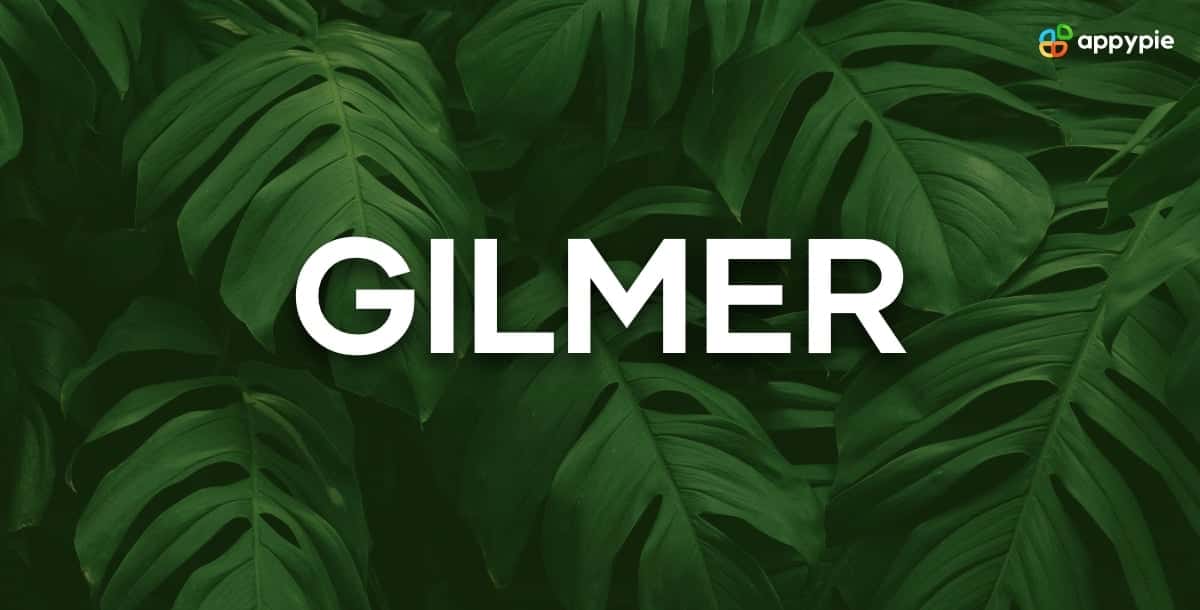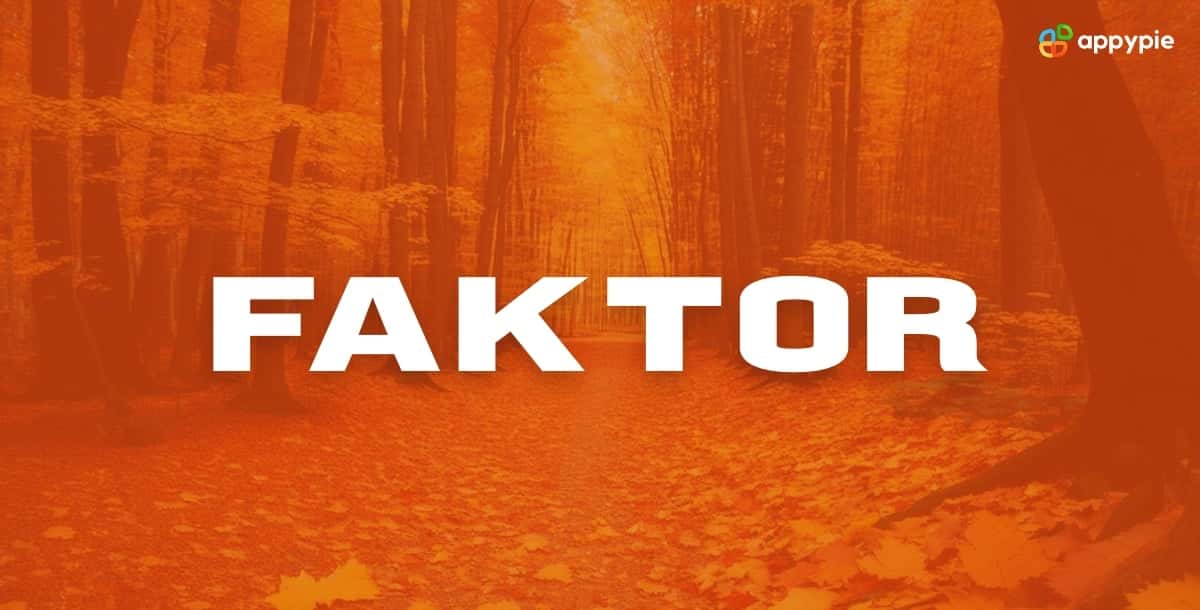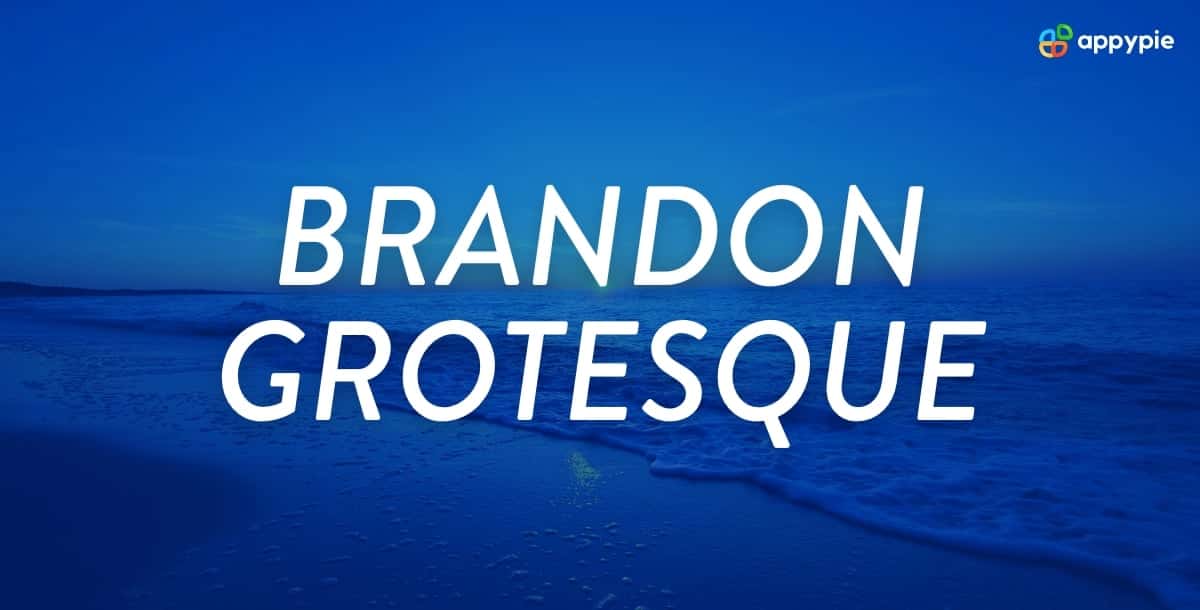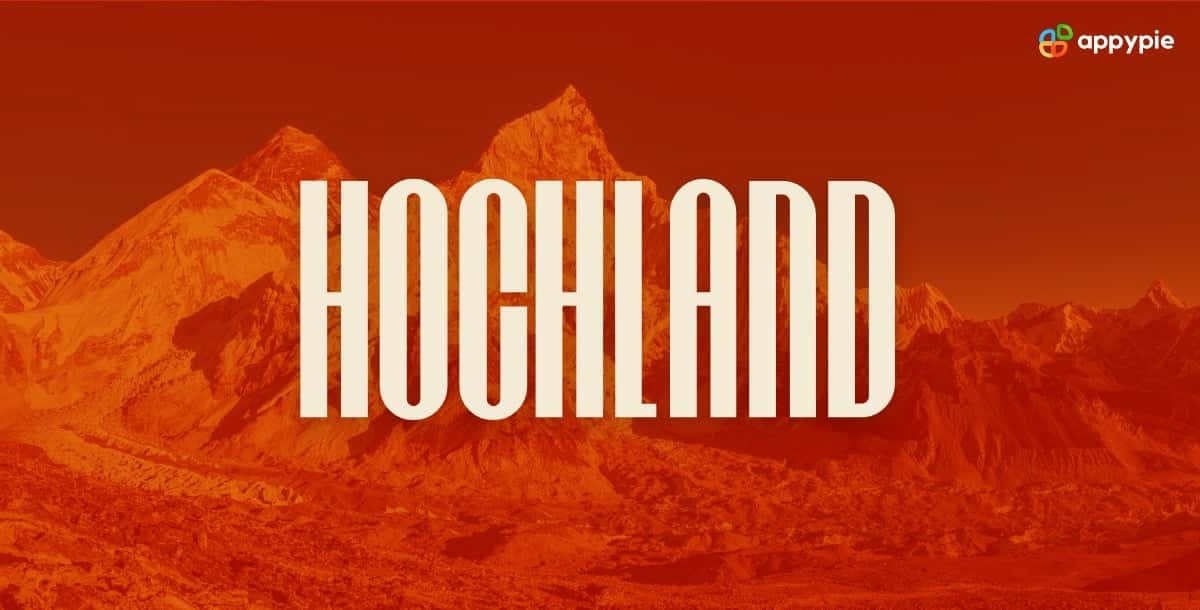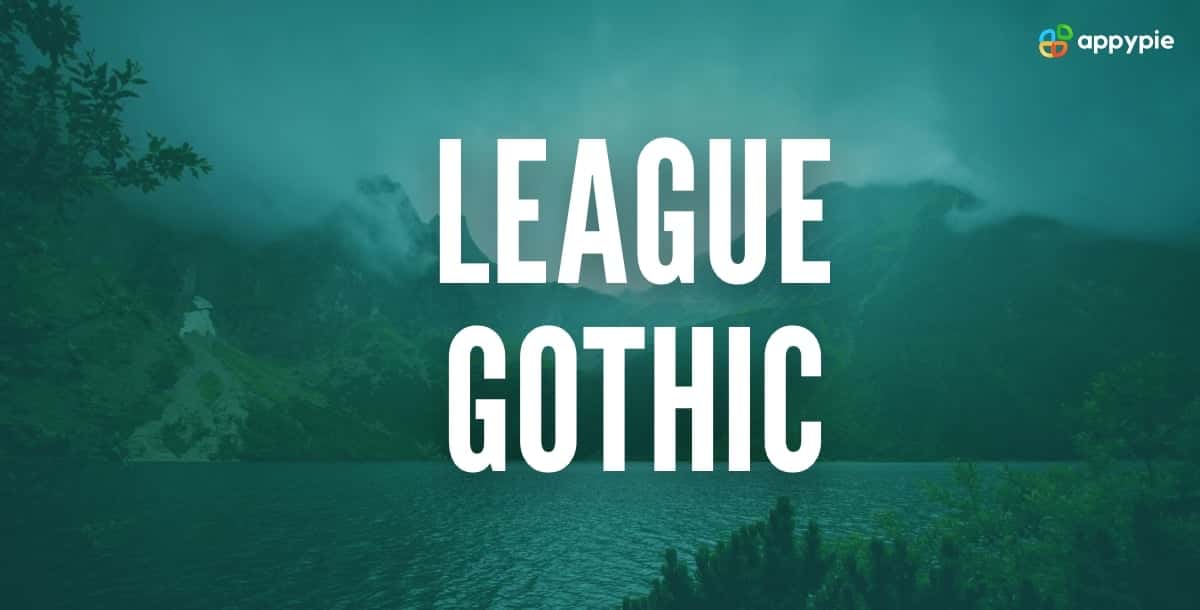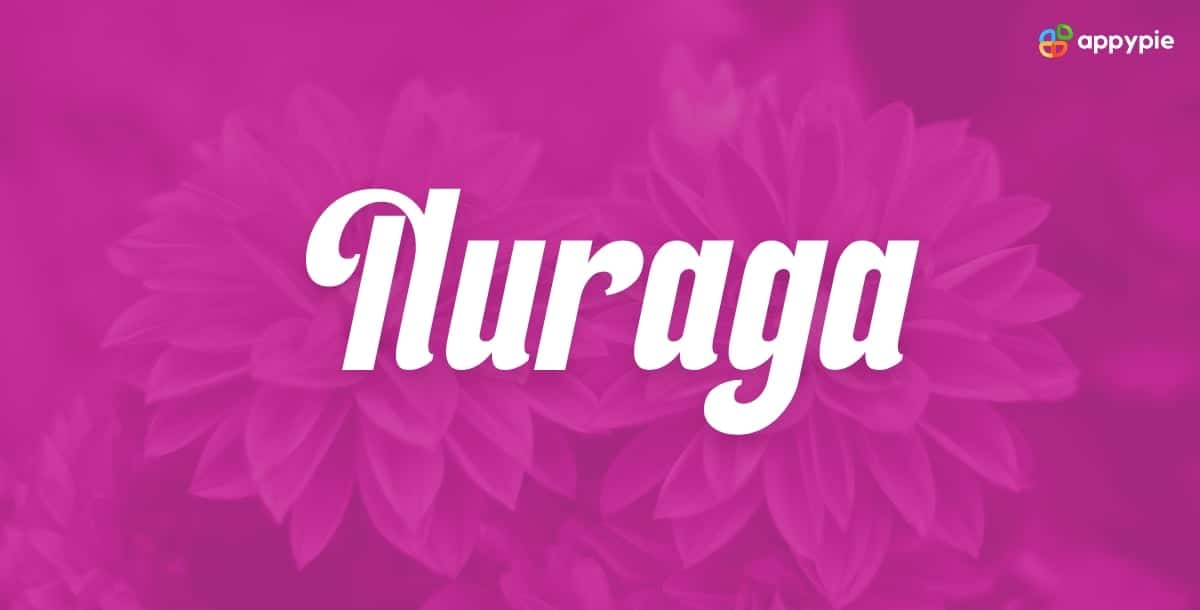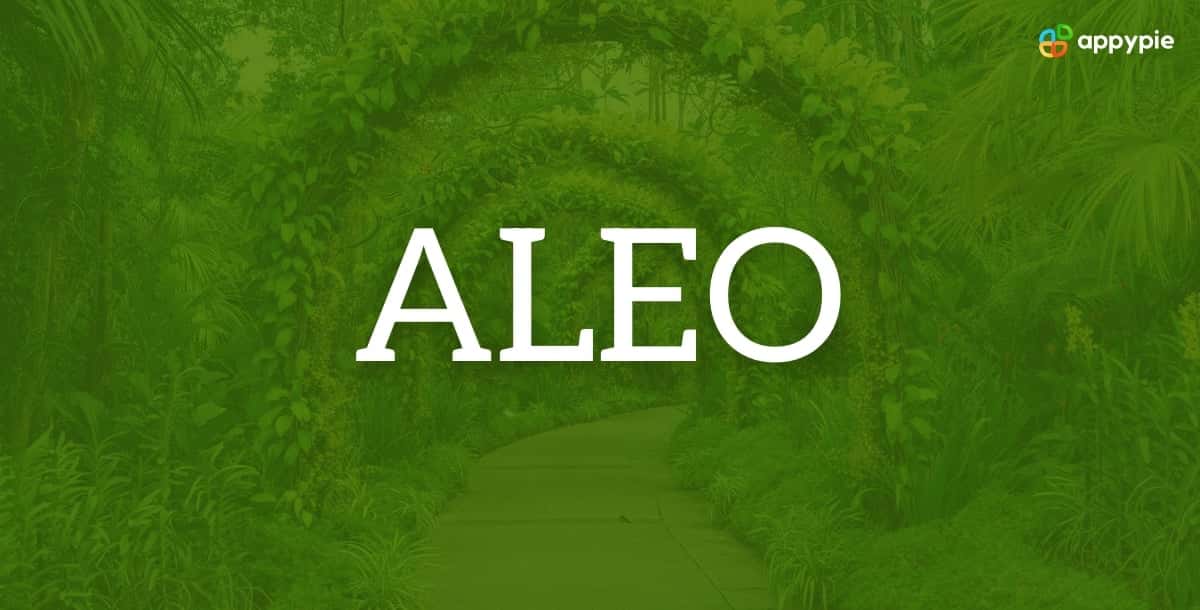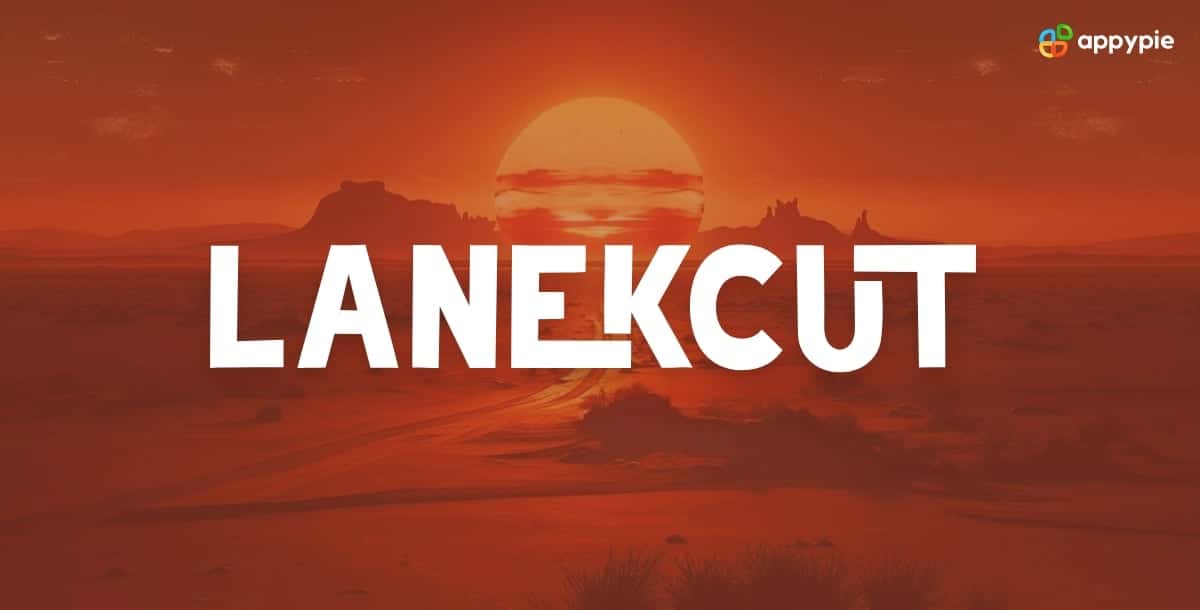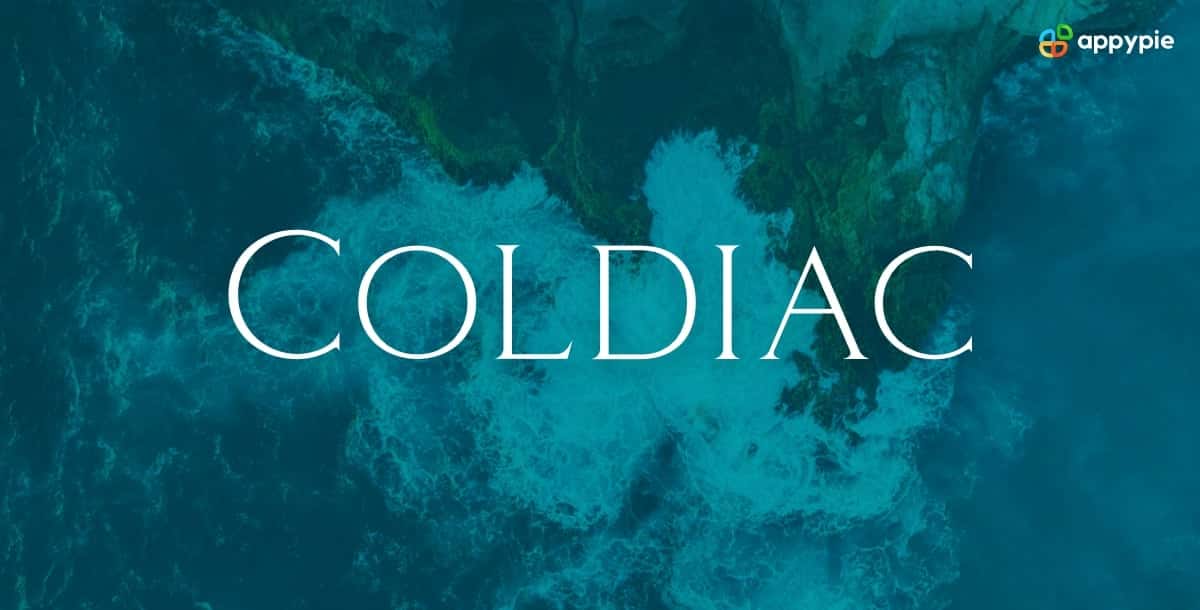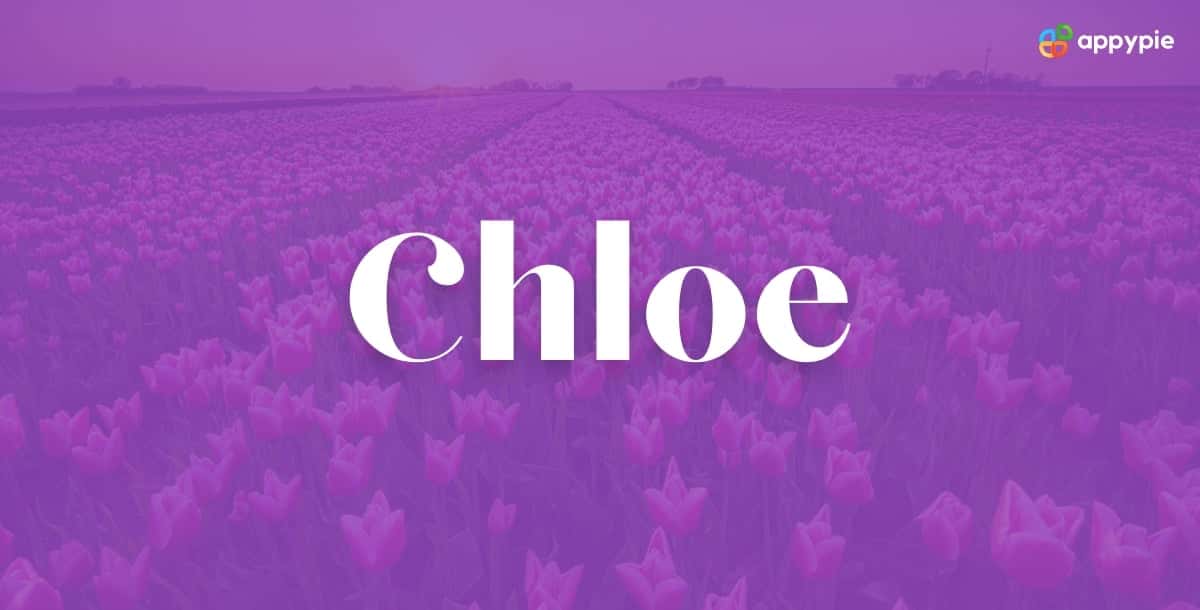
20 Best Fonts for Posters & How to Choose the Best Poster Fonts
When it comes to designing eye-catching posters, the choice of fonts is crucial. Typography plays a pivotal role in conveying your message, setting the right mood, and making your poster stand out. Whether you’re creating a promotional poster for an event, an informative poster for your business, or a piece of art, selecting the best poster fonts is essential. In this comprehensive guide, we’ll explore the world of poster fonts and provide you with tips, tricks, and a selection of fonts that are sure to elevate your poster game.
Posters are versatile pieces of visual communication. From advertising to art, posters serve as powerful tools to capture attention, convey information, and evoke emotions. The key to a successful poster design often lies in typography – the art and technique of arranging type to make language visible. Not only can you design attractive posters from scratch, but you can also use an AI poster maker to make a poster without the need for specialized design skills.
The right fonts can transform a mundane poster into a captivating masterpiece. Conversely, poor font choices can lead to typographical clutter and a loss of visual impact. This is why choosing the best fonts for posters is of utmost importance.
In this blog, we’ll delve into the fascinating world of poster fonts and explore how to select the perfect typeface for your poster. We’ll also help you create unique fonts tailored to your specific needs in minutes. So, let’s embark on a typographic journey to discover the fonts that will make your posters truly exceptional.
Best Fonts for Posters
In the world of poster design, choosing good fonts for posters can make or break your visual masterpiece. To help you make the right call, we’ve curated a list of 20 incredible fonts for posters, each with a unique personality. Discover the perfect fonts and how to use them to elevate your poster game!
- Gilmer
- Faktor
- Brandon Grotesque
- Hochland
- League Gothic
- Nuraga
- Aleo
- Lanekcut
- Coldiac
- Chloe
- Glamor
- Christopher Wells
- Originals
- Bornspeed
- Lavanderia
- Roaring Jungle
- Brand
- Artis
- Wolfgang Krauss
- Bright
Gilmer is a sophisticated serif font that exudes elegance and class. Its graceful curves and timeless appeal make it perfect for formal event posters, wedding invitations, and vintage-themed designs. Use it for titles and headings to create a sense of grandeur and tradition.
Faktor is a versatile sans-serif font with a modern and clean design. It’s ideal for contemporary and minimalistic poster designs. Use Faktor for both titles and body text to maintain a consistent, sleek look throughout your poster.
Brandon Grotesque is a sans-serif font with various weights, offering flexibility for poster design. Its bold variations are great for eye-catching titles, while the lighter weights can be used for subtitles or body text. This font is suitable for a wide range of poster styles.
Hochland features a combination of regular and bold styles, making it versatile for various poster elements. The bold version can be used for attention-grabbing titles, while the regular style complements subheadings and body text. Hochland adds a touch of elegance to your designs.
League Gothic is a sans-serif font with a range of weights that make it perfect for creating a hierarchy in your poster design. Use the bolder weights for titles and headlines, while the lighter weights can handle body text and additional information.
Nuraga offers regular and bold styles for poster designers. The bold variant is excellent for main titles and headings, while the regular style can handle subheadings and body text. This font adds a modern and professional touch to your posters.
Aleo is a decorative font that adds a touch of flair to your poster titles and is one of the cool poster fonts. Use it for titles, especially in event posters and invitations, to create a sense of style and uniqueness. It’s perfect for adding a personal touch.
Lanekcut is a display font that can turn your poster into a visual masterpiece. It’s best suited for titles and headings where you want to make a bold and artistic statement and can be listed among the best letter fonts for posters. This font can help your poster stand out from the crowd.
Coldiac is a script font that brings elegance and sophistication to your poster designs. Use it for titles and headings, especially in formal event posters and upscale invitations. Coldiac adds a touch of luxury and charm.
Chloe is a handwritten font that infuses warmth and authenticity into your poster designs. It’s ideal for adding a personal touch to event posters, art prints, or any design that requires a human element. Use it for titles and special messages.
Glamor is an artistic font that can turn your poster into a work of art. Use it sparingly for titles and headings to create a sense of uniqueness and visual impact. It’s perfect for adding an artistic and creative touch to your designs.
So, go ahead, explore the world of typography, and make your next poster a typographic masterpiece that leaves a lasting impression.